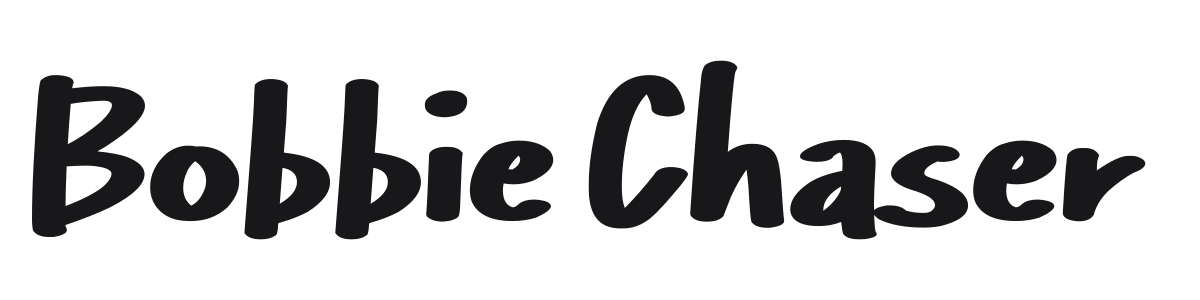
Bobbie Chaser
Bobbie Chaser is a heavy casual script with bold rounded strokes and a confident, hand-lettered swagger. The thick uniform weight and smooth letter connections give it an upbeat, friendly energy that reads instantly at large sizes. A natural fit for brand identities, packaging, and anywhere a design needs genuine warmth without going precious.